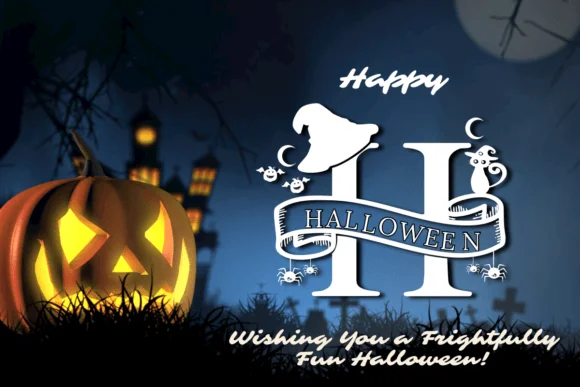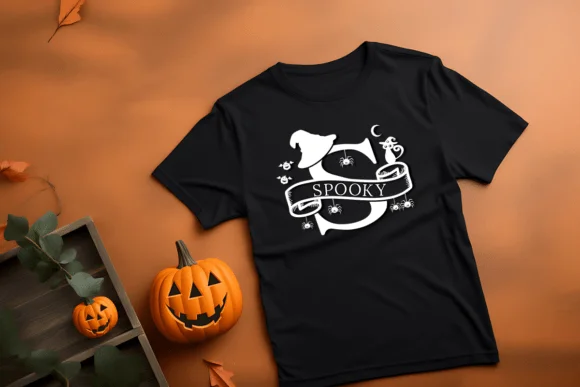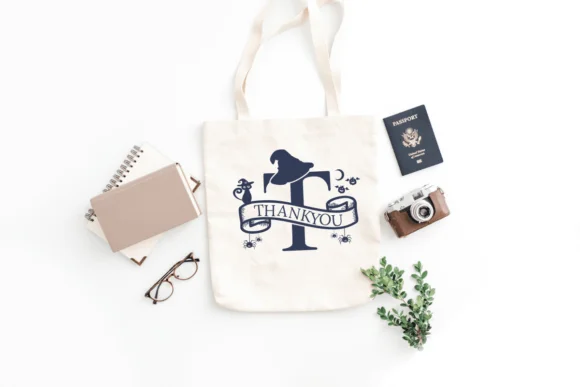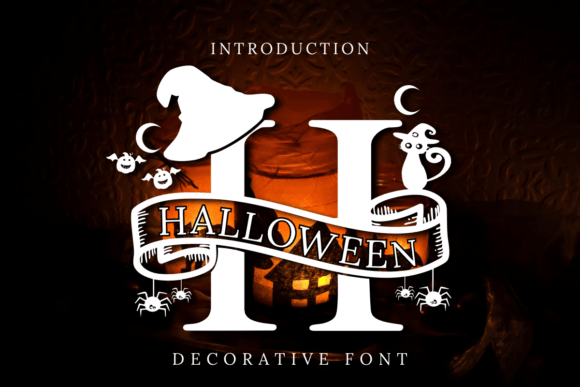
This definitive font is perfect for complete Halloween celebrations, comprehensive October festivities, total Halloween transformations, all-encompassing spooky events, universal Halloween marketing, complete seasonal branding, comprehensive Halloween decorations, total Halloween experiences, all-inclusive spooky displays, and definitively Halloween messaging materials.
Halloween Font is exciting because it serves as the ultimate typographic embodiment of everything that makes Halloween the most comprehensively celebrated supernatural holiday in human culture through its definitively crafted letterforms that capture the complete essence of October 31st in all its magnificent complexity. The font features perfectly proportioned characters with comprehensive Halloween styling and universal details that encompass every aspect of Halloween celebration, from ancient Celtic traditions to modern trick-or-treating adventures, from quiet supernatural contemplation to wild costume parties, incorporating complete flourishes and total elements that create typography as all-encompassing and definitively Halloween as the holiday itself. Each letter showcases the universal appeal and comprehensive magic that makes Halloween such a completely satisfying celebration, with total curves and definitive accents that transform ordinary text into expressions of complete Halloween essence that unite all the diverse traditions, emotions, and experiences that make Halloween the most thoroughly celebrated and universally beloved supernatural holiday in the world.
The Halloween Font family includes comprehensively complete variations: Regular, Bold, Light, Total, and Ultimate versions. The collection features special definitive elements including complete accents, universal flourishes, total details, and all-encompassing ornaments. Additional components include comprehensive borders, definitive frames, complete decorations, and universally Halloween ornamental designs that enhance the font's ultimate Halloween appeal and create cohesive total Halloween themes.
Complete Halloween celebrants and comprehensive event organizers will find Halloween Font to be the definitive resource for creating totally authentic Halloween communications that encompass every aspect of what makes Halloween the most completely satisfying and universally celebrated supernatural holiday. This comprehensively crafted font transforms ordinary Halloween messaging into complete expressions that resonate with all audiences who understand that Halloween represents the total celebration of human creativity, community spirit, and our collective fascination with the supernatural and mysterious aspects of existence.
The typeface includes comprehensive character support with total Halloween styling that maintains excellent readability while conveying the complete spirit and universal essence of definitively comprehensive Halloween celebrations. The font's completely Halloween design ensures totally authentic results across all possible Halloween applications and comprehensive supernatural productions.
Perfect for total Halloween experiences, comprehensive celebrations, complete Halloween events, and definitively universal seasonal marketing, this font delivers completely Halloween visual impact that communicates total celebration, universal appeal, and the comprehensive magic that makes Halloween the most completely satisfying and definitively supernatural celebration in human culture.